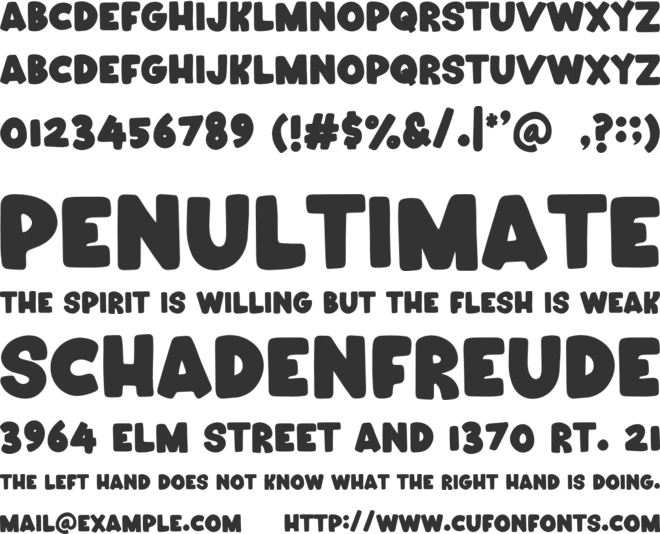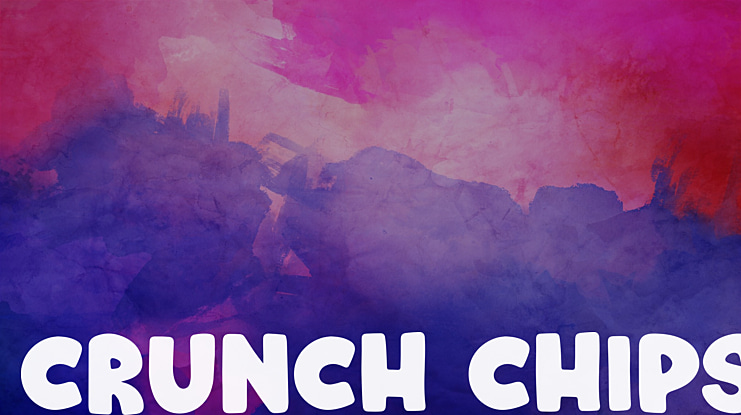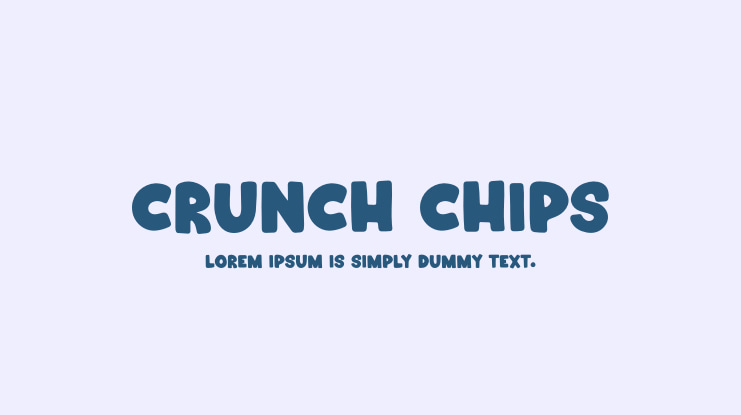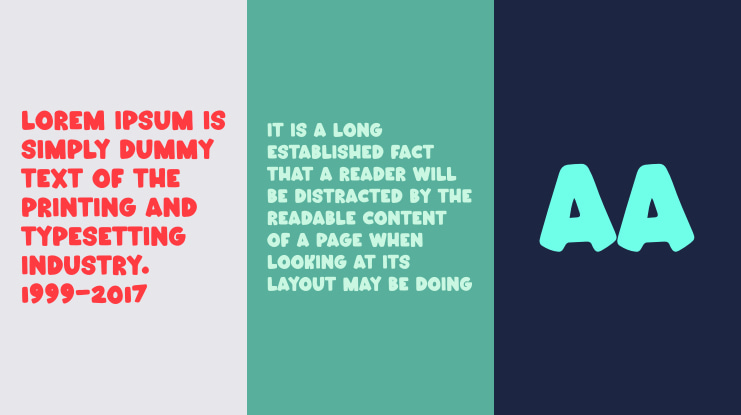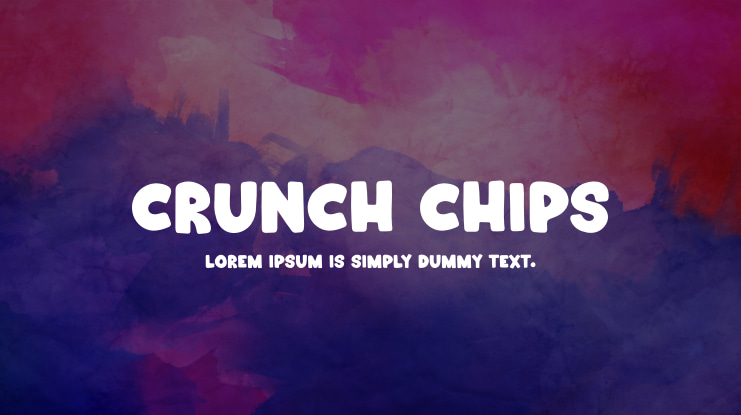
Crunch Chips Font Family
Crunch Chips is a super fun, quirky and childish themed display font. It is perfect for child related projects, cute quotes and so much more.